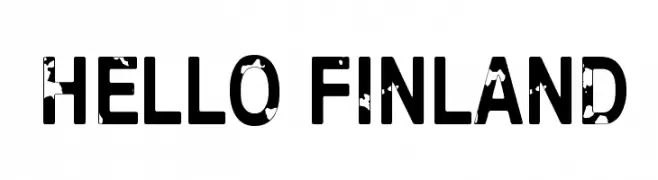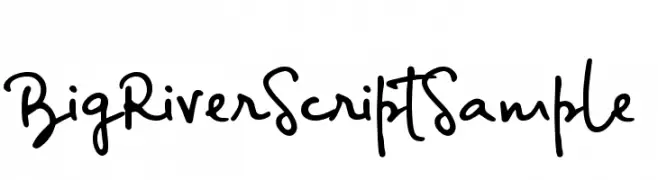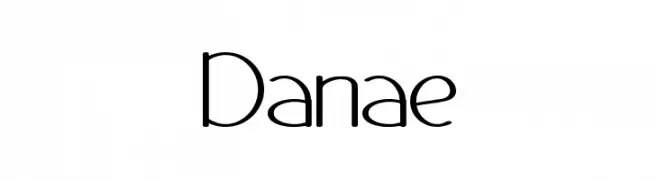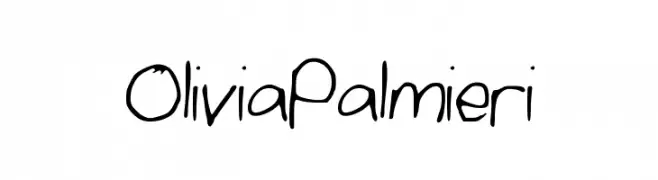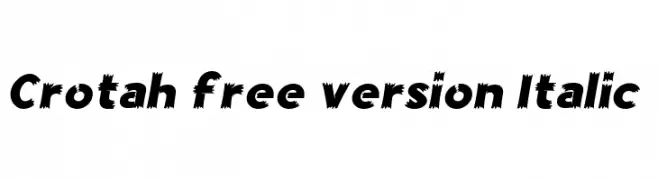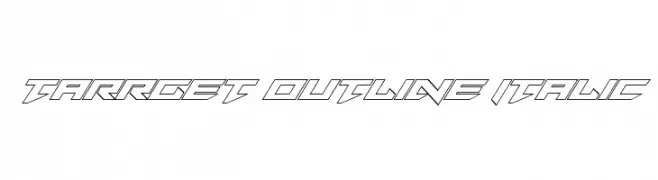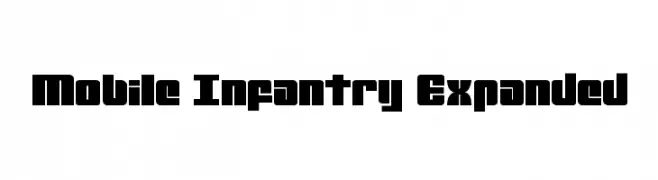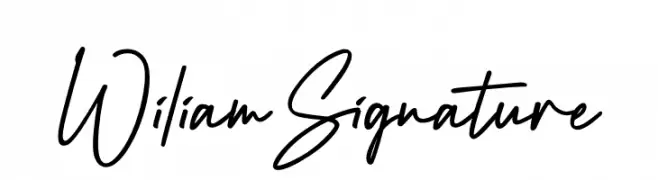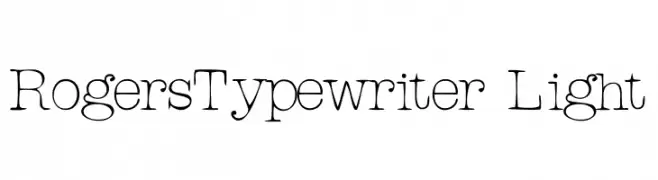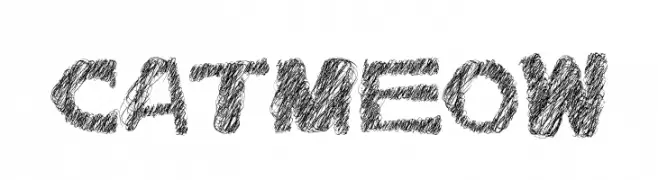
A bold, modern italic font with smooth, fluid strokes and slightly condensed letterforms.
A bold, distressed font with a modern, urban aesthetic.
A lively, cursive script font with fluid, expressive strokes and a handwritten feel.
A modern, angular, and condensed font with a dynamic slant.
A modern geometric sans-serif font with clean lines and uniform stroke width.
A classic, elegant font with a calligraphic influence.
A bold, distressed font with a grunge texture and rugged appearance.
A bold, geometric font with a futuristic and angular design.
A bold, italicized font with jagged, brush-like strokes for a dynamic look.
A dynamic, italicized outline font with a futuristic and angular design.
A bold, geometric font with a military-inspired, futuristic design.
An elegant, cursive font with smooth, flowing strokes.
A futuristic, geometric font with a 3D outline effect.
A vintage typewriter-style font with a light, elegant touch.
A playful, hand-drawn sketch-style font with a textured appearance.
A bold, geometric font with strong, modern letterforms.
A bold, italic, and modern font with high contrast and dynamic style.
A bold, stencil-style font with rounded edges and heavy weight.
A bold, dynamic script font with fluid, cursive strokes and a lively appearance.
A bold, condensed, italic font with a pixelated, digital aesthetic.
A bold, condensed italic font with a dynamic and angular style.
A playful set of pixelated icons with a retro video game aesthetic.
A bold, geometric font with uniform stroke width and square outlines.
A futuristic, 3D italic font with geometric outlines and a dynamic, modern style.